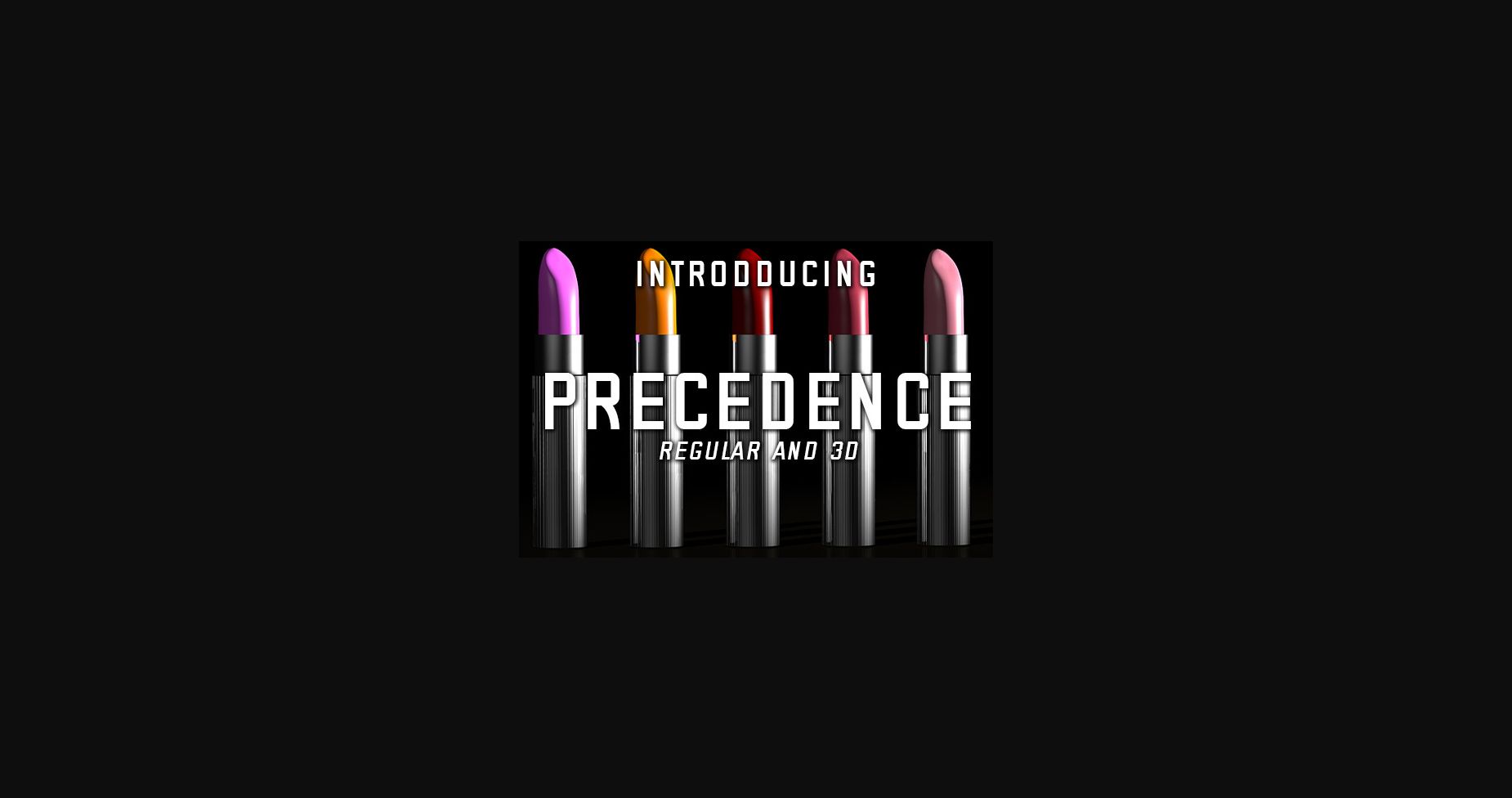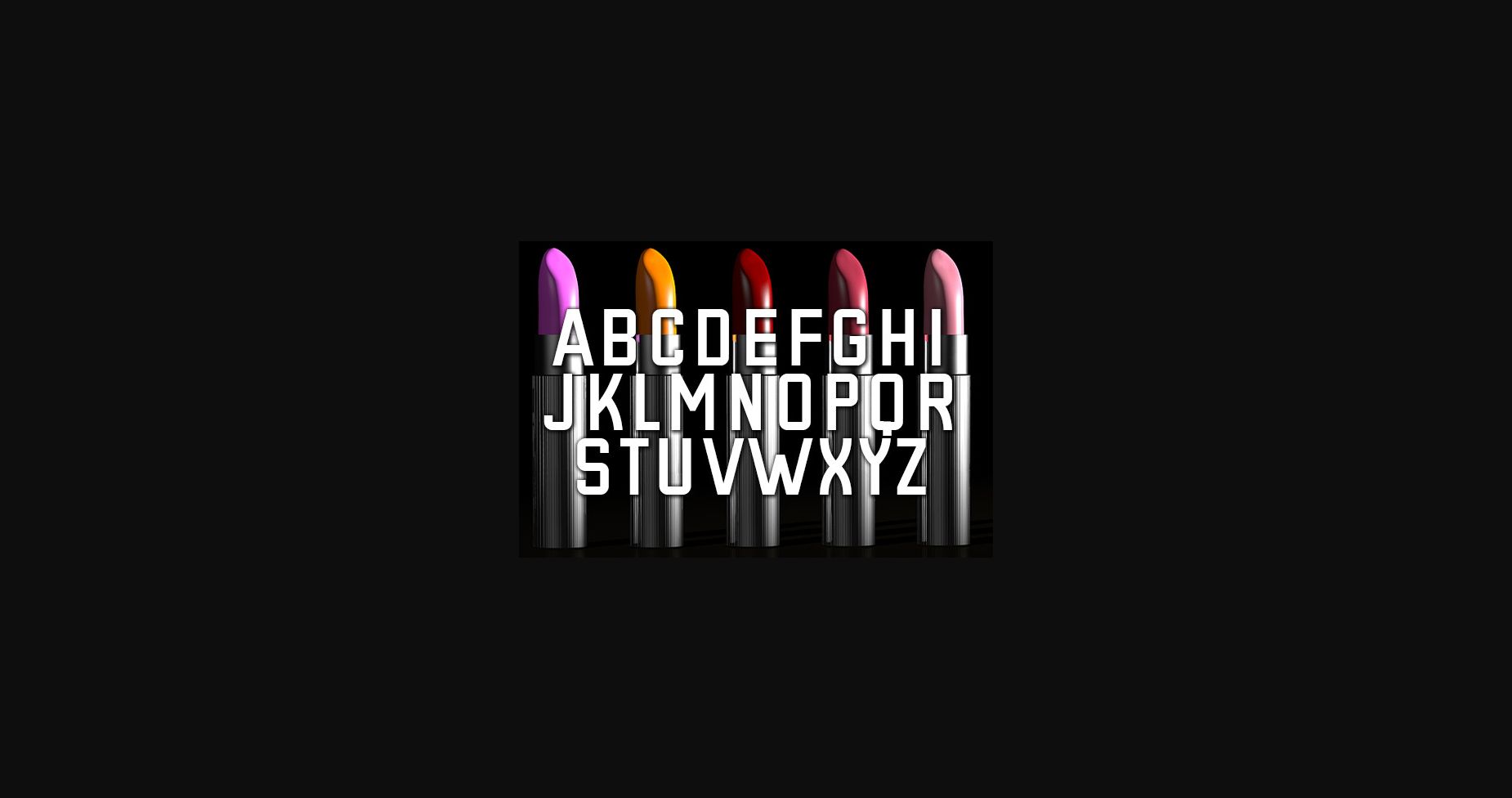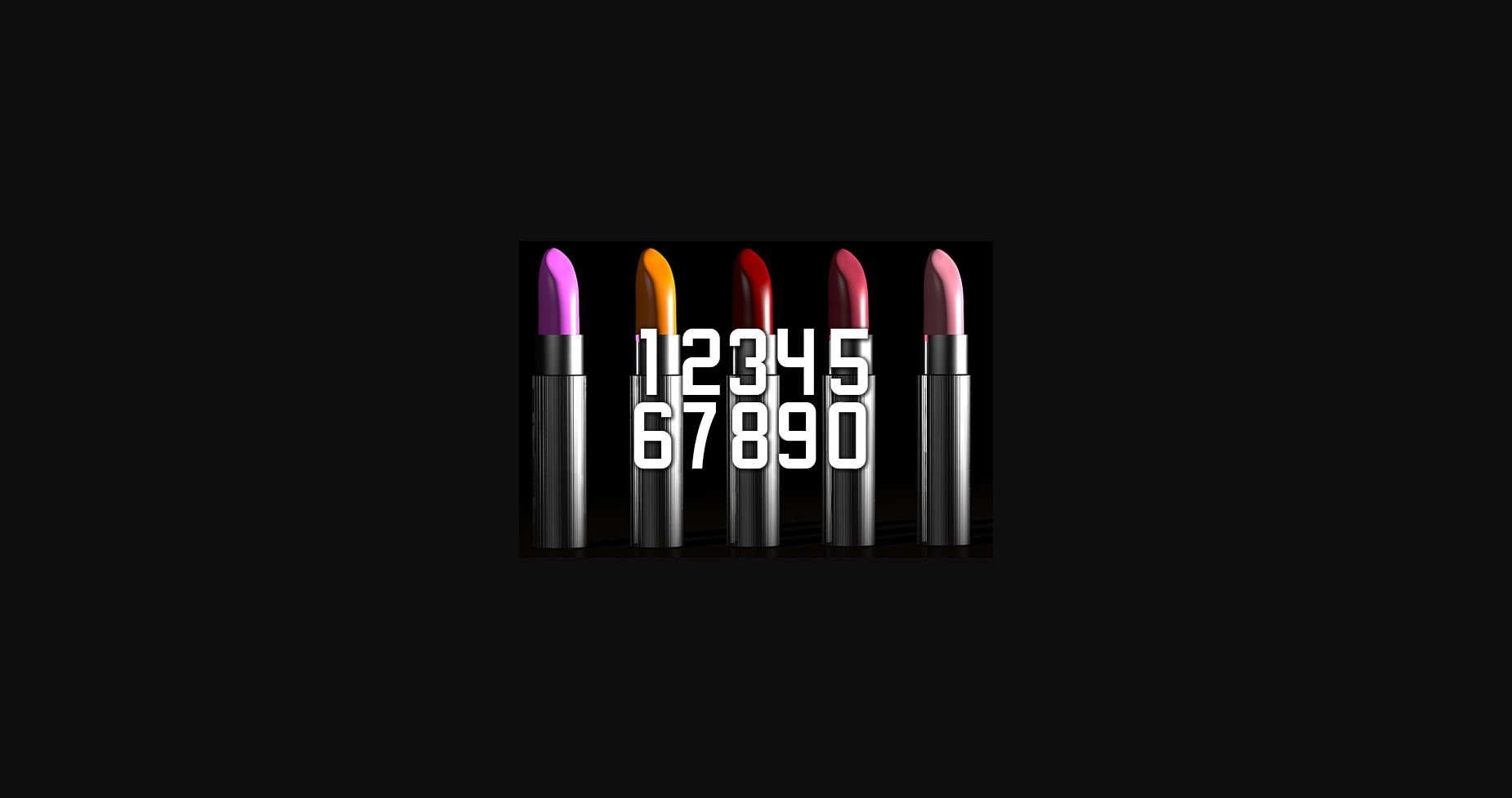
Precedence Font
About Precedence Font
Precedence is an elegant and exquisite sans-serif font that exudes sophistication and class. Its clean lines and minimalistic design make it a versatile choice for a variety of design projects, from fashion to luxury brands. With its timeless appeal and refined aesthetics, this font is the perfect choice for designs that require a touch of refinement.